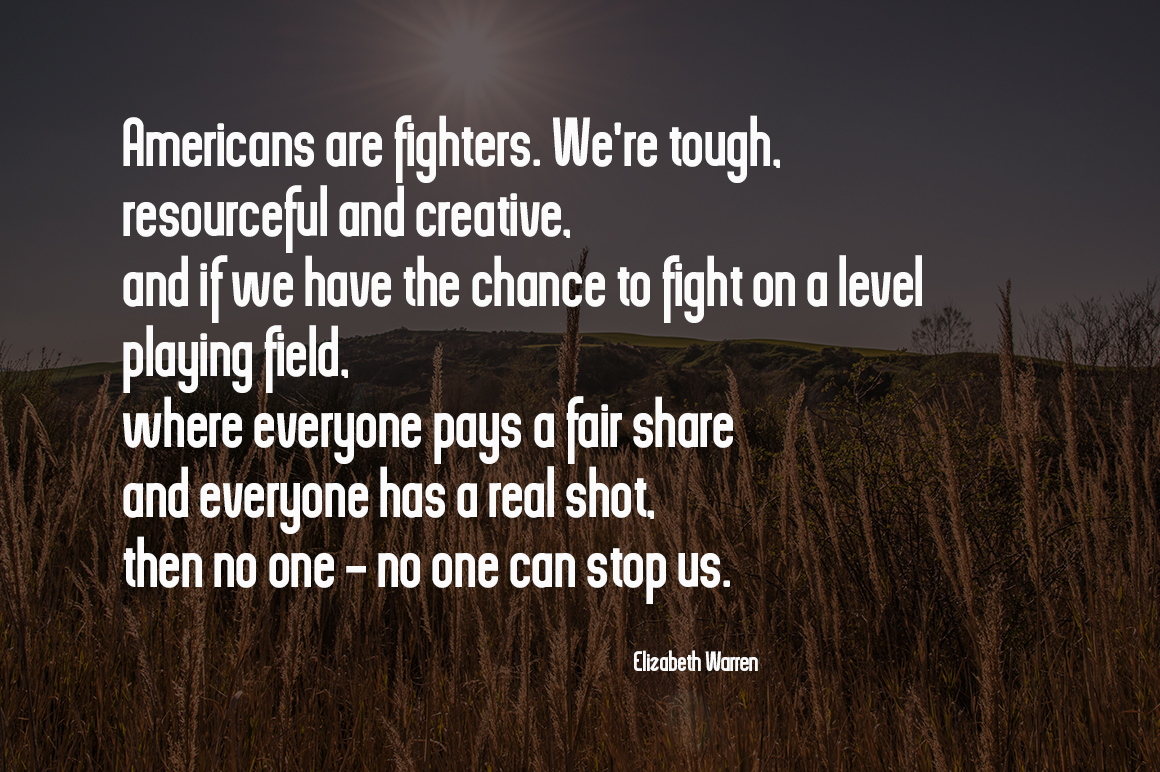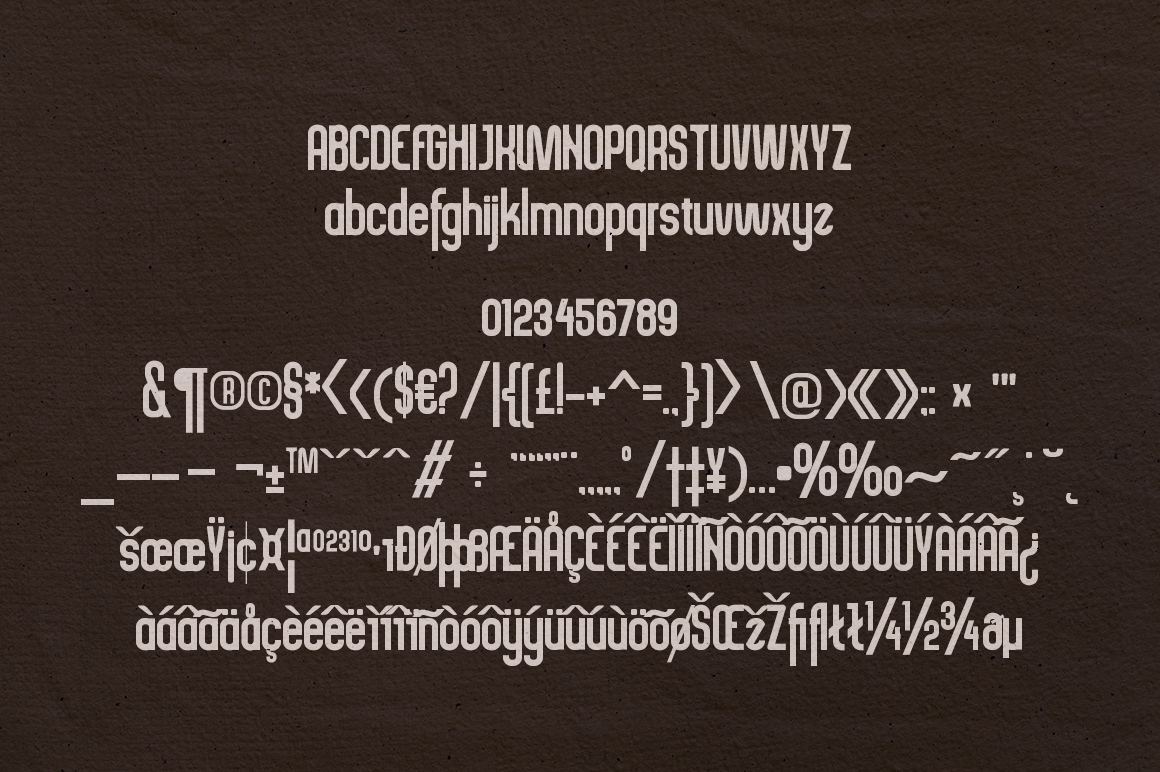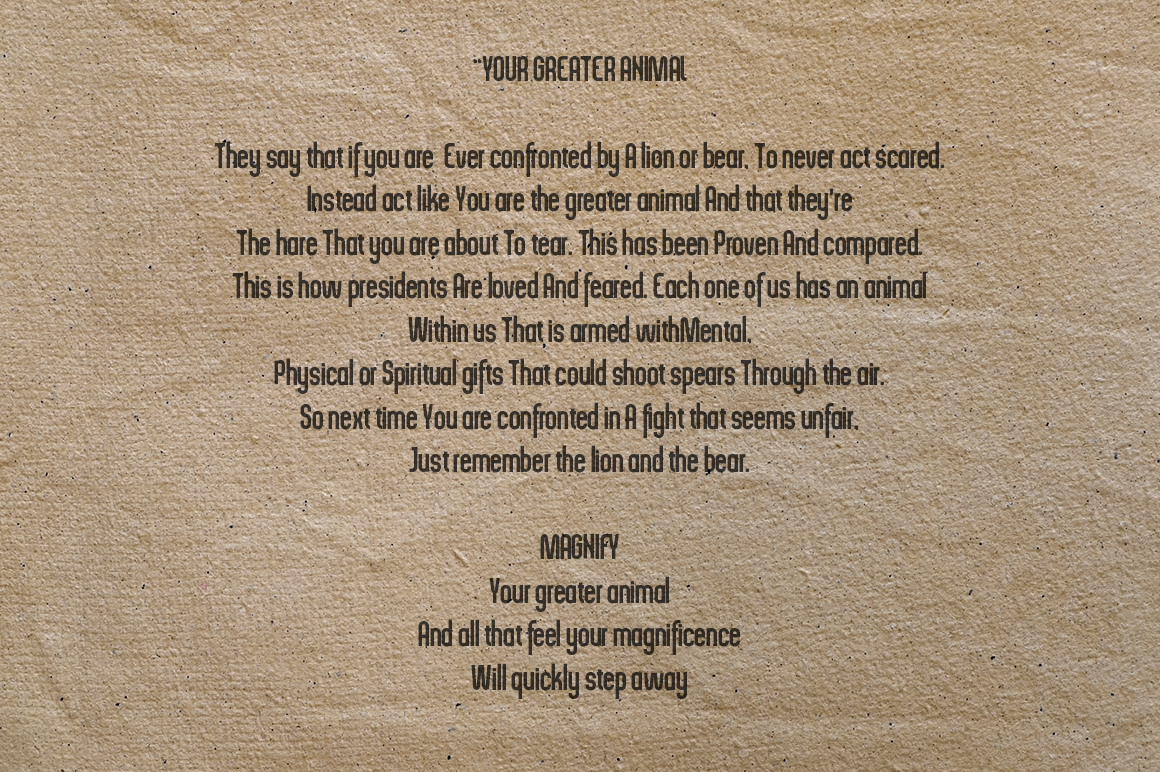
The Asiash Font: A Clean Sans Serif Delight for Designers
I’ll never forget the design project that led me to discover the Asiash font. I was working on a branding project for a trendy new coffee shop, and I needed a font that was clean, modern, and highly legible. After hours of scrolling through font libraries, I stumbled upon Asiash – a beautiful clean sans serif font that instantly caught my eye. In this article, I’ll share my experience with Asiash, its features, and how to make the most of it in your designs.
An Honest Review of Asiash
As a designer, I appreciate fonts that are both aesthetically pleasing and functional. Here’s what I love about Asiash:
- ✨ Clean and minimalist design that works well for body text and headings
- ✅ Highly legible on various devices and screen sizes
- ⚡️ Great for digital and print projects, from websites to business cards
- 🌎 Supports multiple languages, making it a versatile choice for global brands
While Asiash is an excellent font, it’s not perfect. Here are some minor quirks to consider:
- 🤔 Limited stylistic alternates, which might not offer enough variation for some projects
- ⚠️ Not ideal for very small font sizes, as some details might get lost
The Designer Inspiration Behind Asiash
Asiash was designed with the goal of creating a clean, versatile sans serif font that could be used in a variety of contexts. The designer aimed to craft a font that was both modern and highly legible, making it perfect for designers, crafters, and creative hobbyists.
| Font Name | Asiach Font |
| Author | JorseType |
| What type of projects is Asiash best suited for? | Asiash is versatile and works well for digital and print projects, including websites, business cards, brochures, and more. |
| Does Asiash support multiple languages? | Yes, Asiash supports multiple languages, making it a great choice for global brands and multilingual projects. |